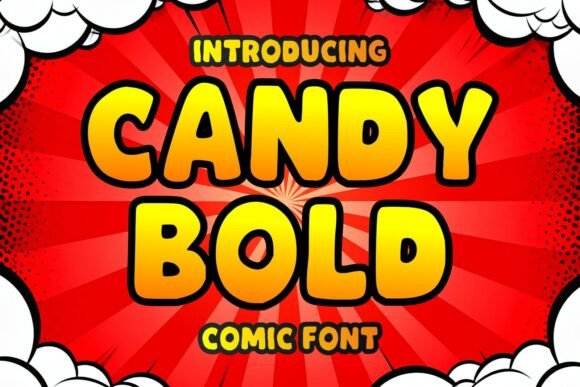
Candy Bold: A Playful Display Font for Handmade Creators
If you’ve ever spent ten minutes tweaking a label just to get the right “happy-but-not-cutesy” vibe—or struggled to find a font that reads clearly on a 1.5-inch sticker while still feeling joyful—you know how much weight a single typeface carries in handmade product design. Candy Bold is that rare display font that lands perfectly between fun and functional: thick, rounded, cartoon-inspired letterforms with generous spacing and cheerful visual weight. It’s not just bold—it’s friendly bold. And for crafters who sell physical goods, digital printables, or cut-file designs, that distinction makes all the difference.
Why Candy Bold Works So Well on Real Products
This isn’t a font built for paragraphs. It’s made for moments—those high-impact spots where your customer first connects with your brand: a candle jar label, a birthday invitation headline, a boutique gift tag, or a welcome sign at a baby shower. The thick strokes and smooth curves hold up beautifully when scaled down for small stickers or cut on Cricut and Silhouette machines—even at 18–24pt, letters remain legible and full of character. No pixelation, no fragile serifs snapping off in vinyl cuts. Just clean, confident shapes that pop against kraft paper, pastel cardstock, or matte ceramic mugs.
I’ve used Candy Bold on soy wax candle labels (paired with a soft sans serif for ingredients), on printable planner cover pages (where its bounce adds energy without overwhelming daily layouts), and as the hero font on SVG-based wall art for kids’ rooms. Every time, it delivers warmth and clarity—not just decoration. That’s because its proportions are carefully balanced: tall x-height, open counters, and consistent stroke weight mean it reads fast, even at a glance. Customers don’t squint. They smile—and remember your shop.
Where It Shines Across Your Product Line
- Labels & Tags: Perfect for bath bombs, cookie packaging, or handmade soap bars—especially when printed on white or light-colored sticker stock. Its rounded forms soften sharp edges and feel tactile, even on screen.
- Invitations & Stationery: Birthday invites, gender reveal announcements, and baby shower banners gain instant personality with Candy Bold for names and headlines. Pair it with a delicate script for “Mr. & Mrs.” or a warm serif for body text to keep elegance grounded.
- Digital Printables: Planner stickers, habit trackers, and classroom reward charts benefit from its cheerful authority. Because it’s a display font, it avoids visual fatigue in repeated use—unlike overly ornate scripts that blur together across a page.
- Signage & Wall Art: From farmhouse-style wooden signs to printable nursery art, Candy Bold holds presence without shouting. Try it in all caps for “Welcome Little One” or mixed case for playful phrases like “Snack Time!”
- Merchandise: Works reliably on t-shirts, totes, and enamel pins—especially when simplified into single-color vector outlines. Its clean geometry translates well to embroidery digitizing and heat-transfer applications.
Smart Pairings That Elevate Your Design
Display fonts thrive in contrast. With Candy Bold, lean into balance: pair its exuberance with something calm, clear, or elegant. For greeting cards, try a relaxed handwritten font for short notes (“So glad you’re here!”) beneath a Candy Bold title. For product packaging, set ingredient lists or care instructions in a neutral sans serif like Montserrat or Lato—clean, readable, and commercially safe. If you're designing wedding stationery, let Candy Bold introduce the couple’s names, then follow with a gentle serif (think Playfair Display or Cormorant Garamond) for ceremony details. The goal isn’t matching—it’s supporting. Let Candy Bold carry the emotion; let your secondary font carry the information.
A Note on Readability in Production
Here’s what I’ve learned through trial: Candy Bold shines brightest at sizes 24pt and up for printed cards, 16pt minimum for small stickers (with clean-cut vinyl), and 36pt+ for wall art or signage viewed from 3+ feet away. Avoid tight tracking—its charm lives in breathing room. And if you’re prepping files for print-on-demand platforms like Printful or Gelato, always convert text to outlines before uploading. That prevents font substitution surprises and keeps your bold, rounded integrity intact. Also, test mockups at actual size—not just zoomed-in previews. A font that looks lively on your laptop might flatten on a 2x3” product tag if spacing isn’t optimized.
More Than Just a Font—It’s a Tone Setter
When customers see Candy Bold on your packaging, they don’t just read your product name—they register your energy. Playful, sincere, handmade, and confident. That impression sticks. It tells them your candles aren’t mass-produced, your invitations weren’t templated, and your digital planner isn’t generic. It quietly reinforces your brand identity—not through logos or colors alone, but through the very shape of your words. In a crowded marketplace, that kind of consistency builds recognition faster than any ad campaign. And because Candy Bold is a display font with strong visual DNA, it becomes part of your shop’s signature—reliable, joyful, and unmistakably yours.